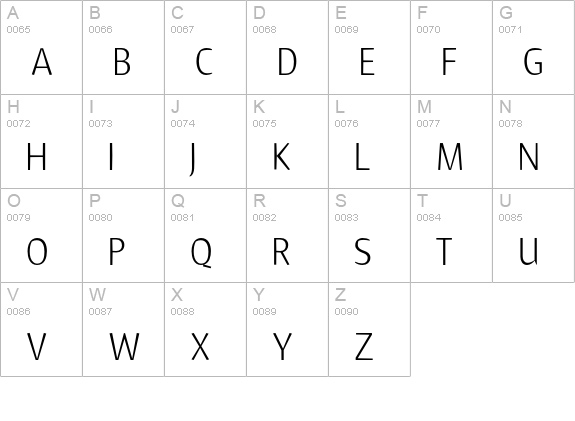
TabardEF-Light Font Details
TabardEF-Light is a refined, elegant variant in the TabardEF typeface family \xE2\x80\x94 well suited to elegant body text, refined sub-headings, and luxury branding.
TabardEF-Light is a stunningly elegant font that effortlessly combines sophistication with modern simplicity. Its clean and crisp lines make it a perfect choice for a wide range of design projects, from logo design to website headers and everything in between. The light weight of this font adds a touch of delicacy and refinement to any text, making it suitable for both professional and personal use. With its timeless appeal and versatile nature, TabardEF-Light is a font that will never go out of style. Whether you are creating a corporate brochure, designing a wedding invitation, or crafting a magazine layout, this font will add a touch of class and elegance to your project. One of the best things about TabardEF-Light is that it is free! Yes, you read that right. This high-quality font is freely available to download at FontsMarket.com. This means that you can enhance your designs without breaking the bank. So go ahead and give your projects a touch of sophistication with TabardEF-Light, the free font that is as beautiful as it is versatile.